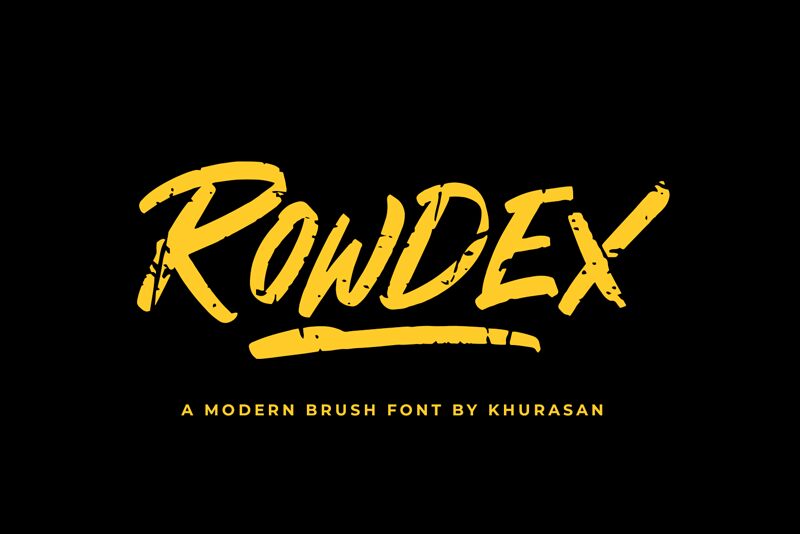
Rowdex
Rowdex, a captivating brush font by Khurasan, exudes an irresistible charm with its eroded texture. Its expressive strokes and imperfect edges lend an authentic hand-painted feel to any design project.
Ideal for vintage-themed branding, nostalgic posters, or creative packaging, Rowdex adds a touch of artistic flair to your designs. With its versatility and distinct style, this unique font is also perfect for crafting eye-catching social media graphics or designing striking album covers.
Let Rowdex bring your designs to life with its raw and edgy appeal.